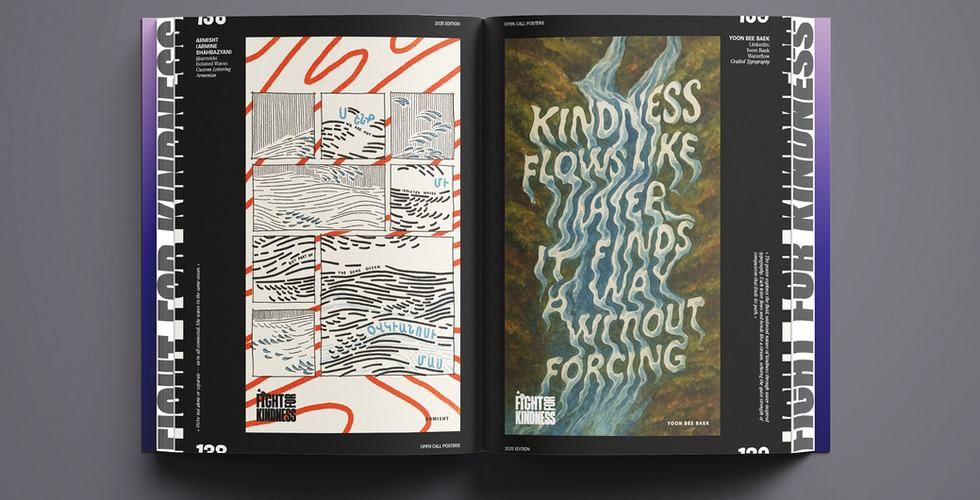
Visual Voices for Change is finally HERE!
Visual Voices for Change is a journey into the many meanings of kindness.
This year over 700 designers from more than 70 countries have reflected on what kindness means to them — toward themselves, others, humanity, and the planet — harnessing the strategic and persuasive power of good design to bring these reflections to life through more than 750 typographic artworks.
This book is an immersive journey across cultures, languages, and continents, offering hundreds of interpretations of kindness — bold and audacious, calm and introspective, rooted in personal experience or serving as social and political commentary. Browsing through its pages can hardly leave you indifferent, as each reader is likely to find a message that resonates deeply with them.
This year’s edition is also supported by a distinguished lineup of international guest artists who contributed exclusive original posters: Joshua Davis (New York, US), Birgit Palma (Barcelona, ES), Mat Voyce (London, UK), Pann Lim, Kinetic (Singapore, SGP), Vanessa Zúñiga Tinizaray (Loja, EC), David Oku (London, UK), Carina Lindmeier (Vienna, AT), Samar Maakaroun, Pentagram (London, UK / LBN), Duy Nguyen, M — N Associates (Ho Chi Minh City, VN), Kris Andrew Small (Sydney, AU), and Ibrahim Zaki (Dubai, DXB).
With a foreword by Steven Heller, and endorsed by renowned figures, magazines, awards, creative events, and institutions in the global visual culture scene, the book documents the evolution of the international typographic campaign Fight for Kindness launched in 2022. Rather than presenting design as a neutral discipline, the book argues that every visual decision carries meaning and consequence. It invites readers to reconsider the role of the designer in today’s interconnected and media-saturated world.
“Typography isn't just how we read words, it's how we feel them. On a subconscious level, letterforms can add a powerful layer of expressiveness to the textual meaning of a message; they can create an empathetic connection, elevate values, and—why not?—trigger positive reactions to foster positive change.”
— Debora Manetti, Program Director at TypeCampus and Co-founder of Zetafonts
Produced through artworks in 34 scripts and languages, Visual Voices for Change demonstrates how design can break boundaries, spark dialogue, and unite communities around shared human values.
This publication represents the fourth annual edition of the global Fight for Kindness initiative — a movement that each year invites designers worldwide to explore empathy, inclusion, and human dignity, promoting a culture of kindness through typographic expression.
"Empathy, emotional intelligence, and kindness are no longer just personal values — they’re professional advantages among future developments. I believe the designer’s role will increasingly be to act as a cultural interpreter — someone who can bridge past and future, have “glocal” perspective, understand human needs and master technological tools. Kindness, in this sense, is the music—the strategy that sets the rhythm for building a design system on deeper principles, and giving each element the right touch so the work resonates both functionally and emotionally."
–DUY NGUYEN, GUEST AUTHOR